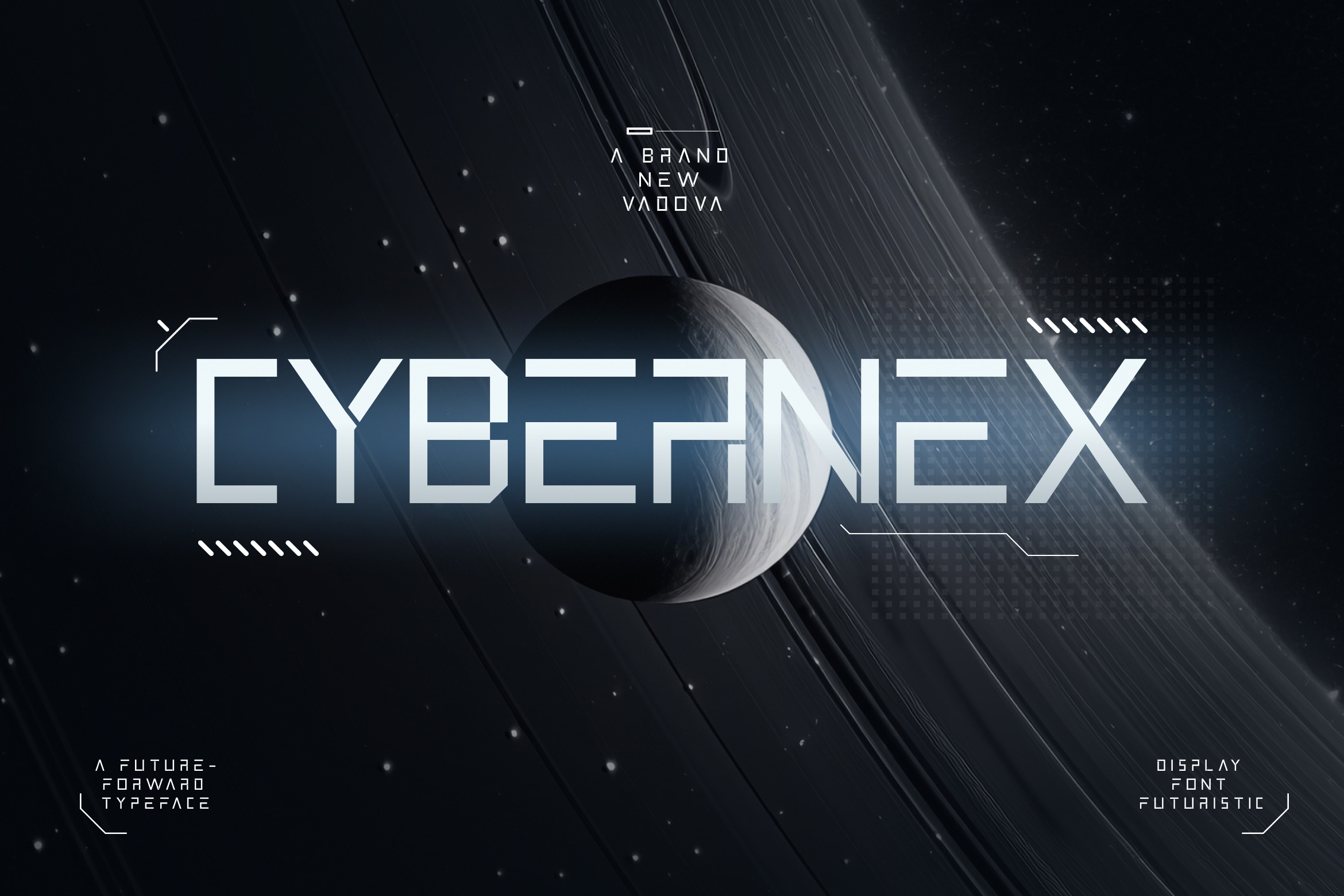
Cybernex – Futuristic Display Font
Cybernex is a cutting-edge futuristic display font designed to project innovation, technology, and digital precision. Created by Vadova Studio, this typeface captures the essence of sci-fi aesthetics through sharp geometric shapes, modular construction, and sleek angular cuts. Every letterform feels engineered with machine-like symmetry, evoking cybernetic elegance and forward-thinking design.
Inspired by space exploration and digital architecture, Cybernex blends minimal structure with a high-tech tone — perfect for tech branding, UI design, gaming interfaces, and sci-fi motion graphics. The clean lines, uniform grid, and mechanical precision make it a standout font for projects that demand a futuristic visual identity.
Whether used in movie titles, esports visuals, or conceptual product design, Cybernex delivers an immersive experience that bridges the worlds of design and technology. It’s more than a font — it’s a vision of the future rendered in typographic form.
- Uppercase futuristic display sans serif typeface
- Sharp geometric letterforms with modular construction
- Inspired by sci-fi design, space technology, and digital grids
- Ideal for tech branding, film titles, game interfaces, and posters
- Designed with clean structure and a visionary aesthetic
- Complete uppercase alphabet, numerals, and punctuation
- Works seamlessly across branding, web, and motion graphics
- Balances strong readability with bold visual impact
Relevance and Use Cases is perfect for futuristic branding, sci-fi film titles, tech startups, esports logos, robotic interfaces, UI/UX concepts, digital posters, cyberpunk themes, modern web design, and motion graphics projects. It’s crafted for designers who want to express innovation, structure, and digital sophistication through typography.